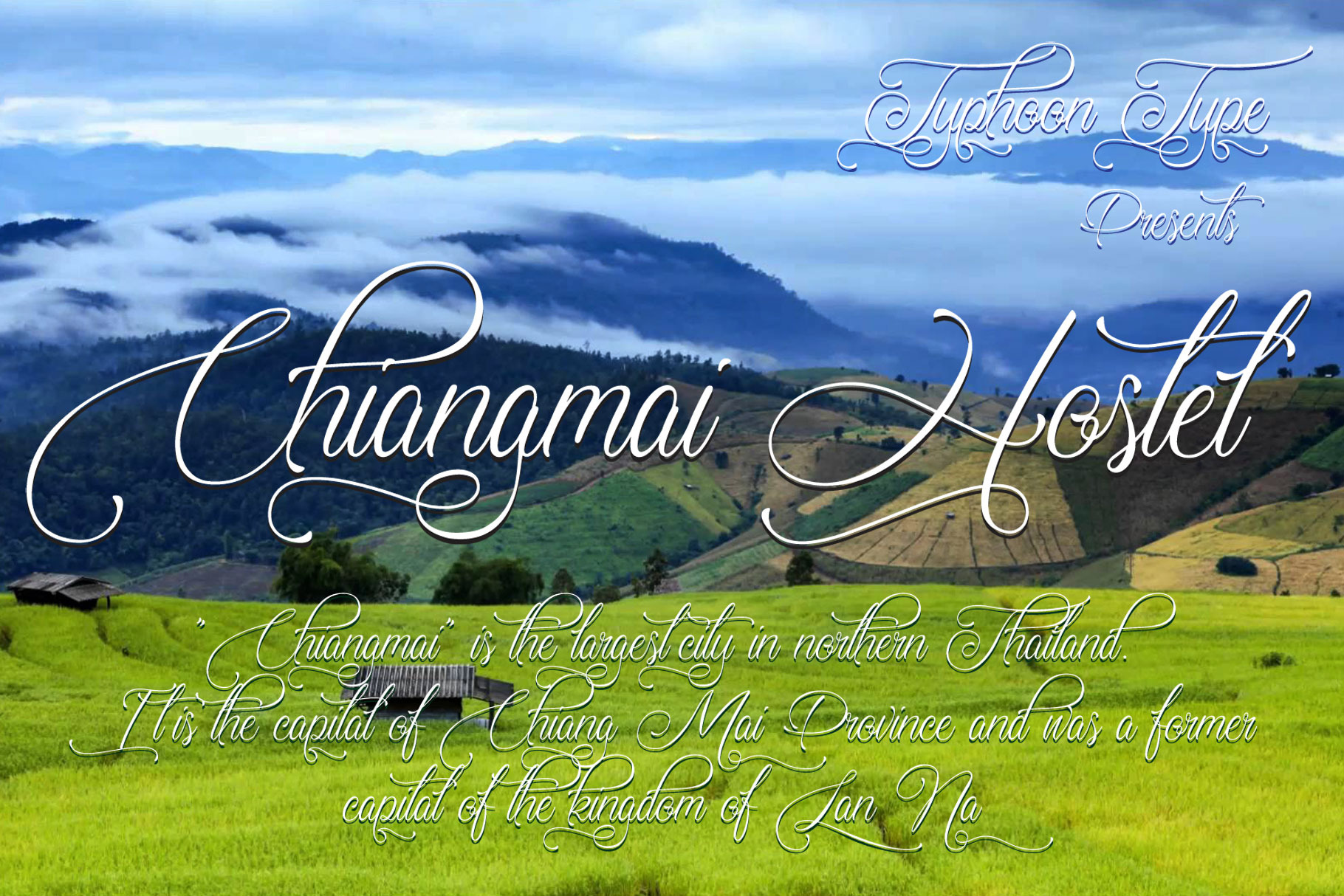
Chiangmai Hostel font
Chiangmai-Hostel This font perfect for logos, name tag, advertising, product packaging, clothing, social media & greeting cards.